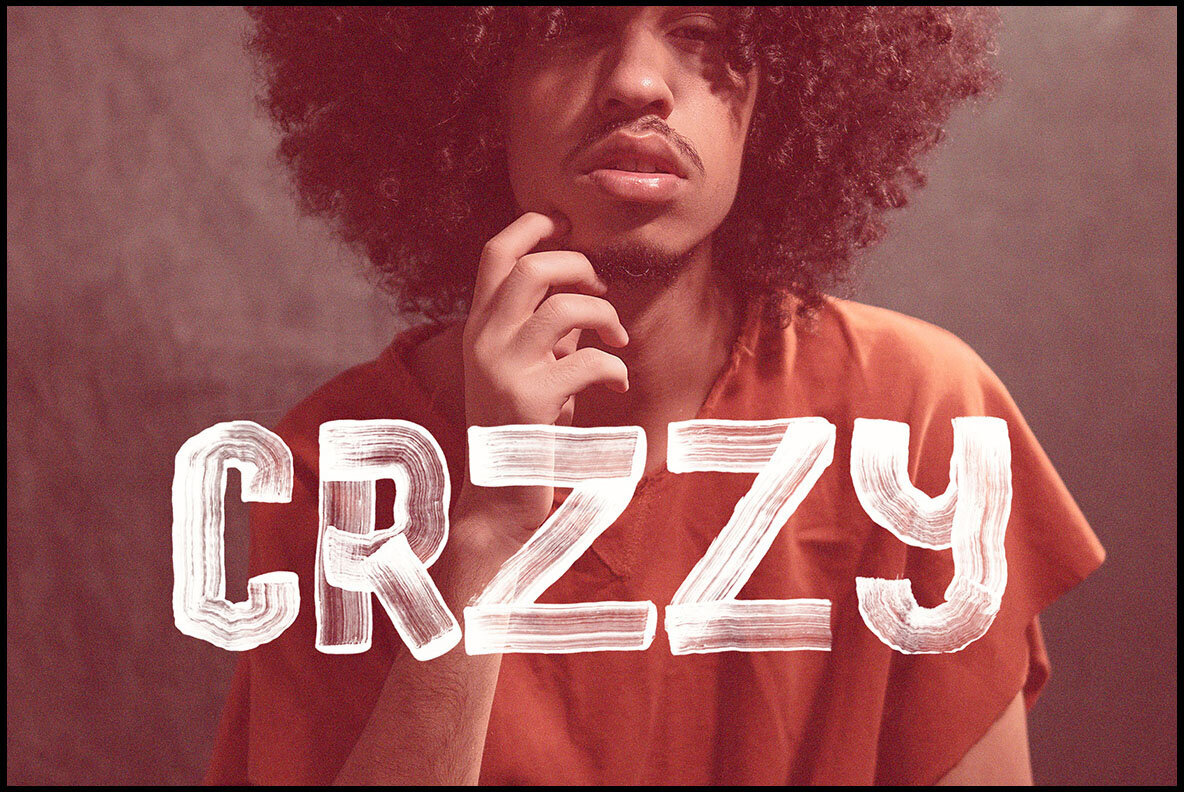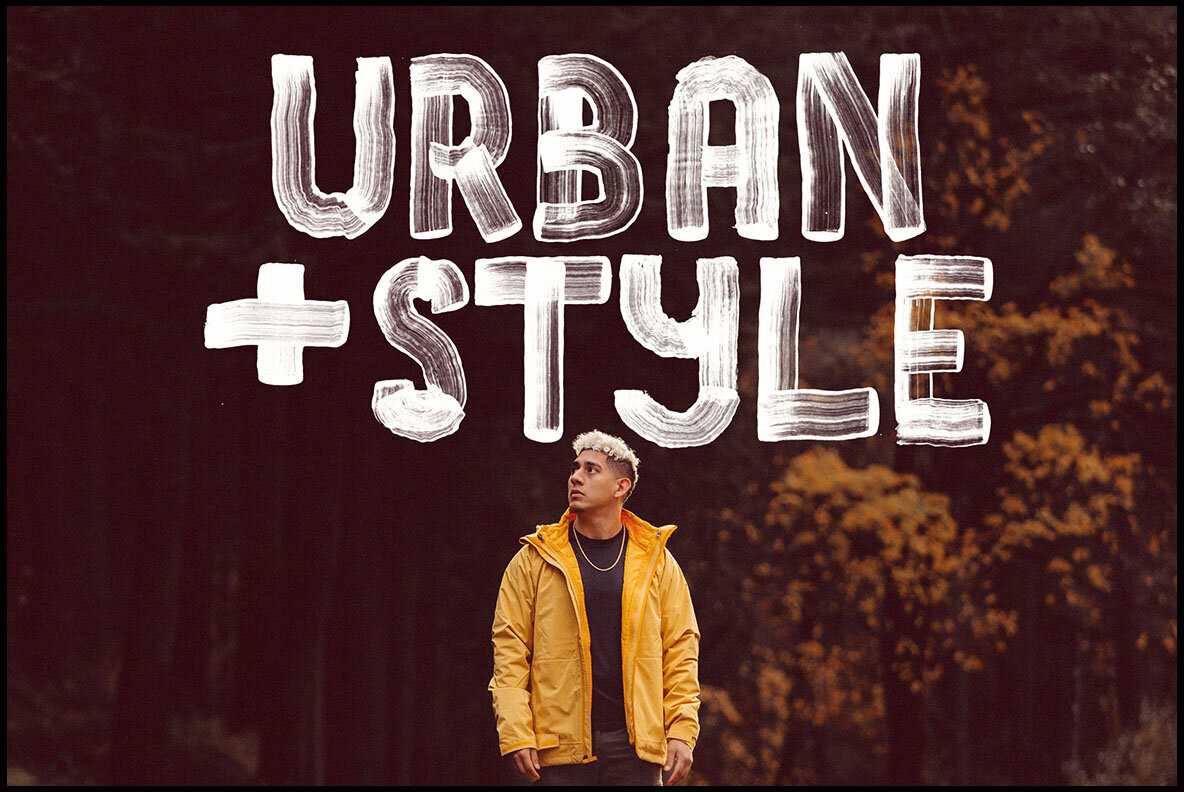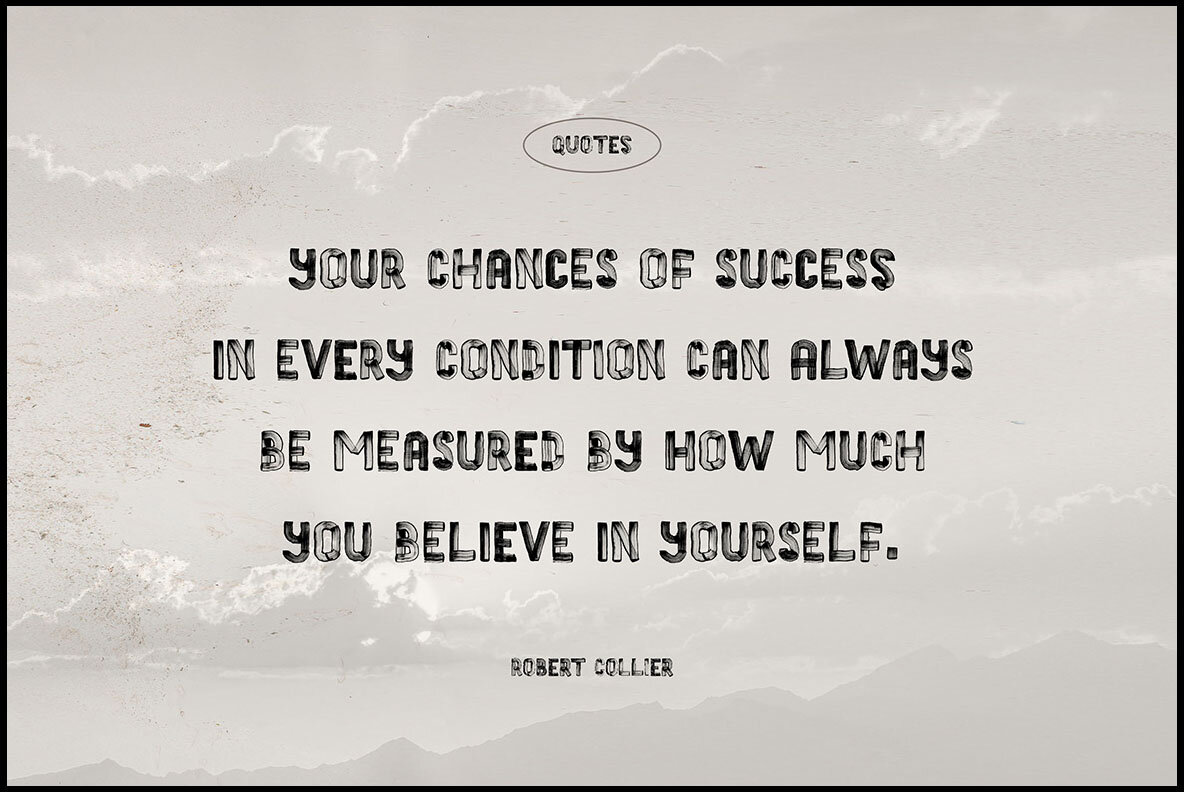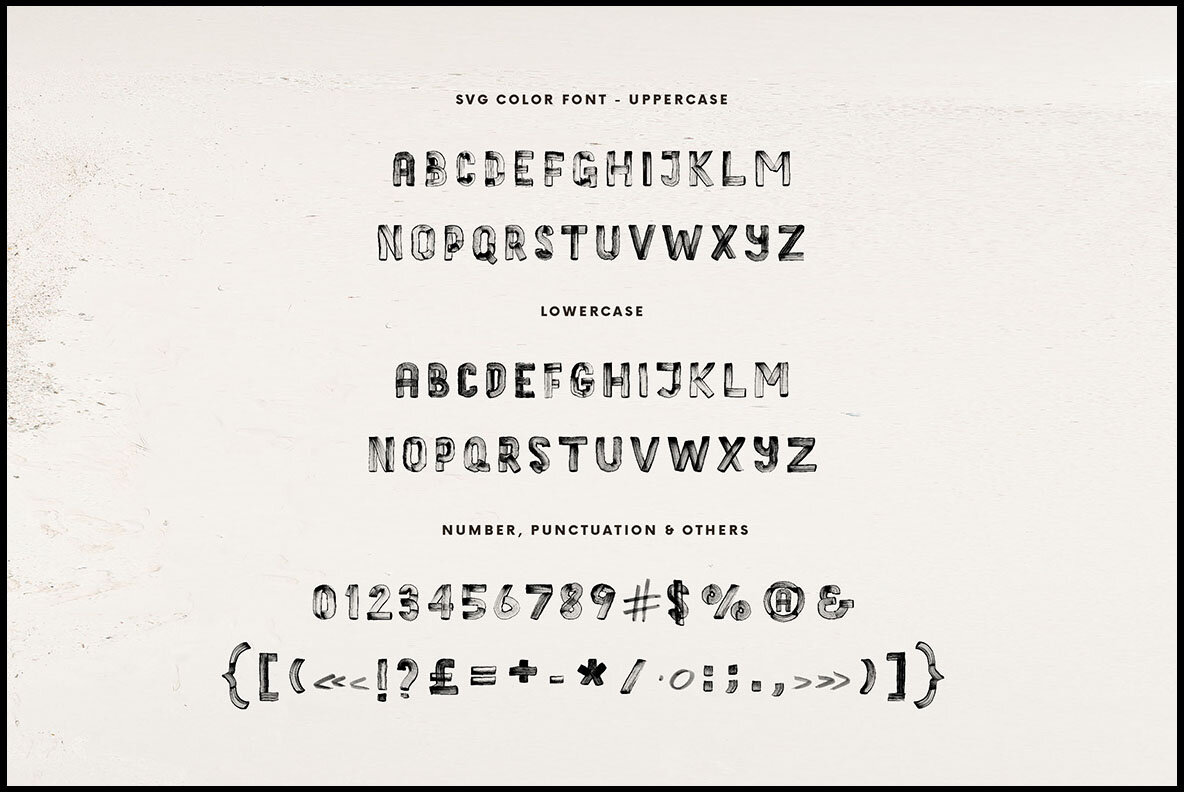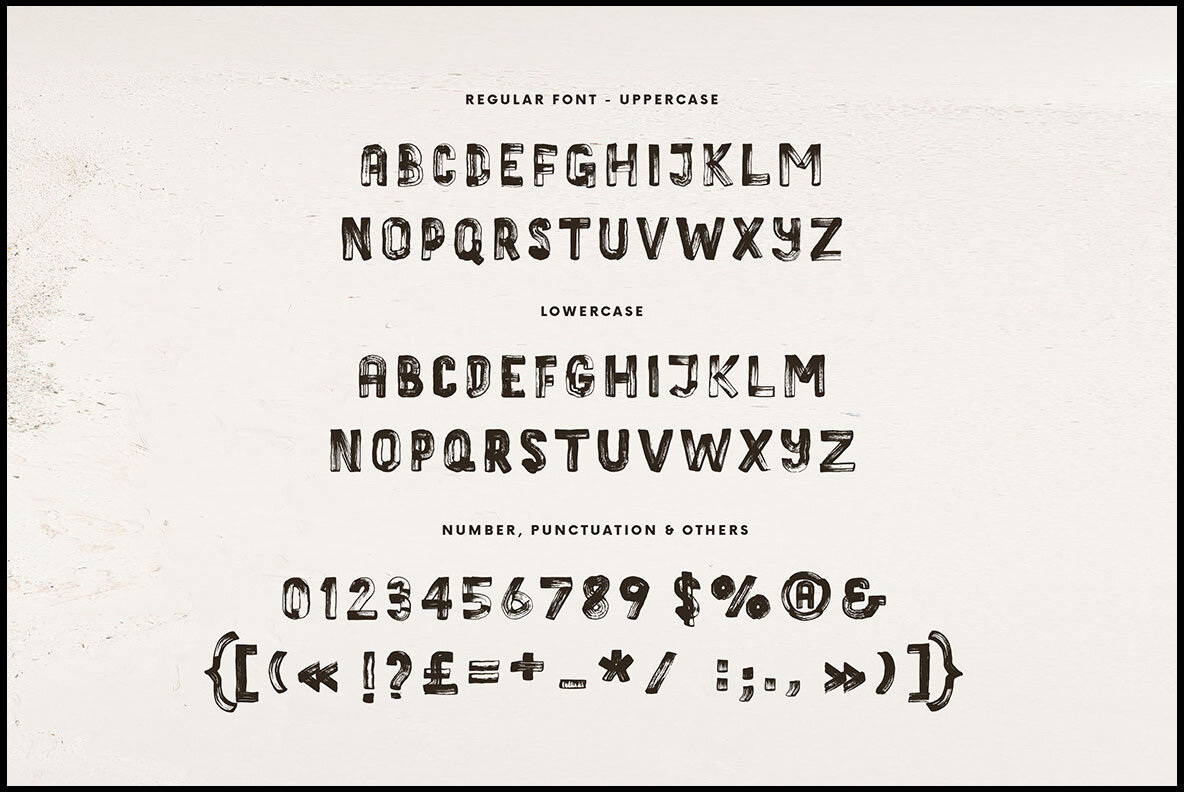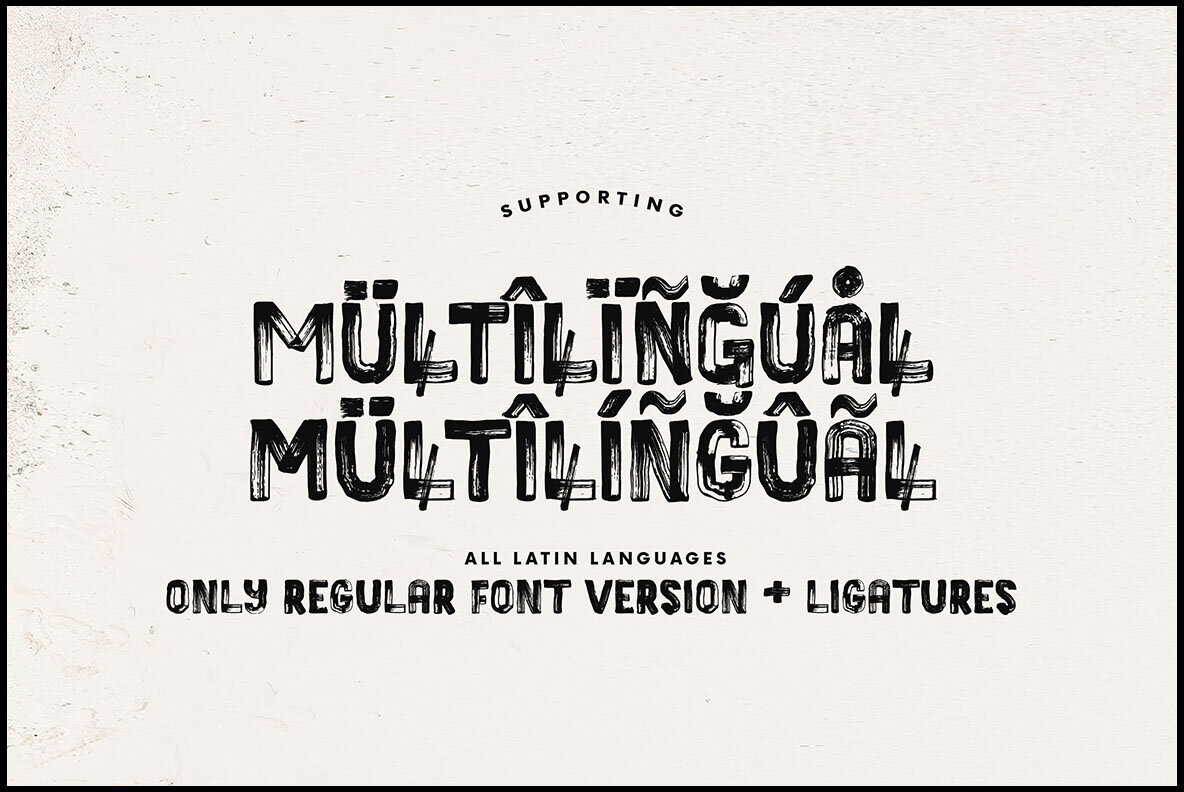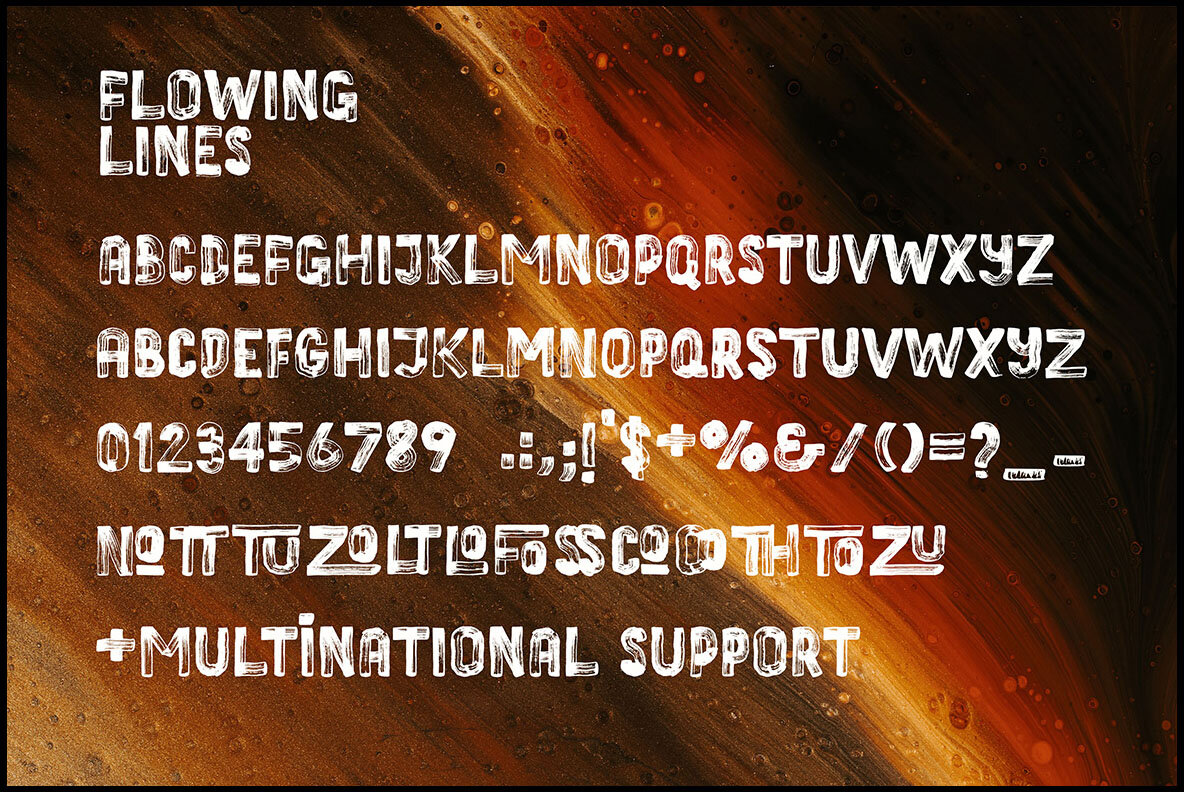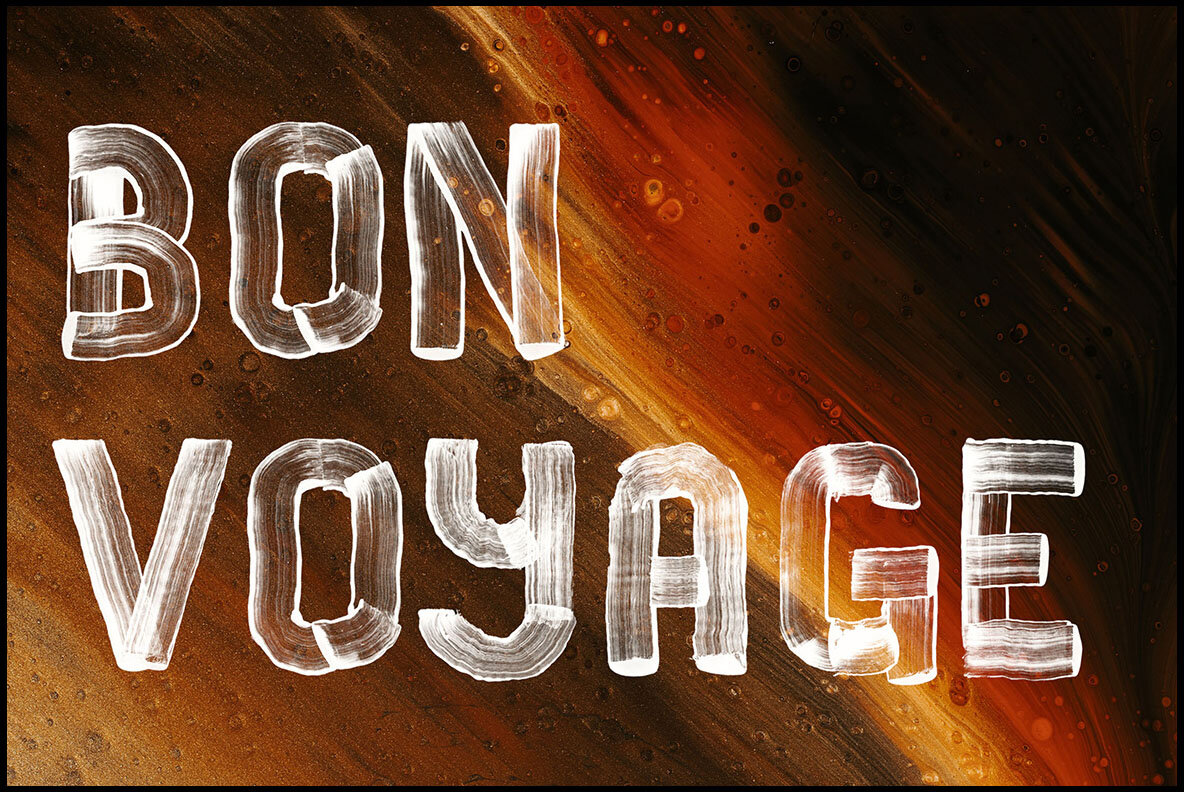
Flowing Lines Font
Flowing Lines by Peter Olexa is a distinct sans serif display font, characterized by its brush, rough, or grunge style. Handwritten with a bold marker, this font is an ideal choice for grunge, urban, or artistic projects.Flowing Lines: Urban Grunge Style Sans Serif Font